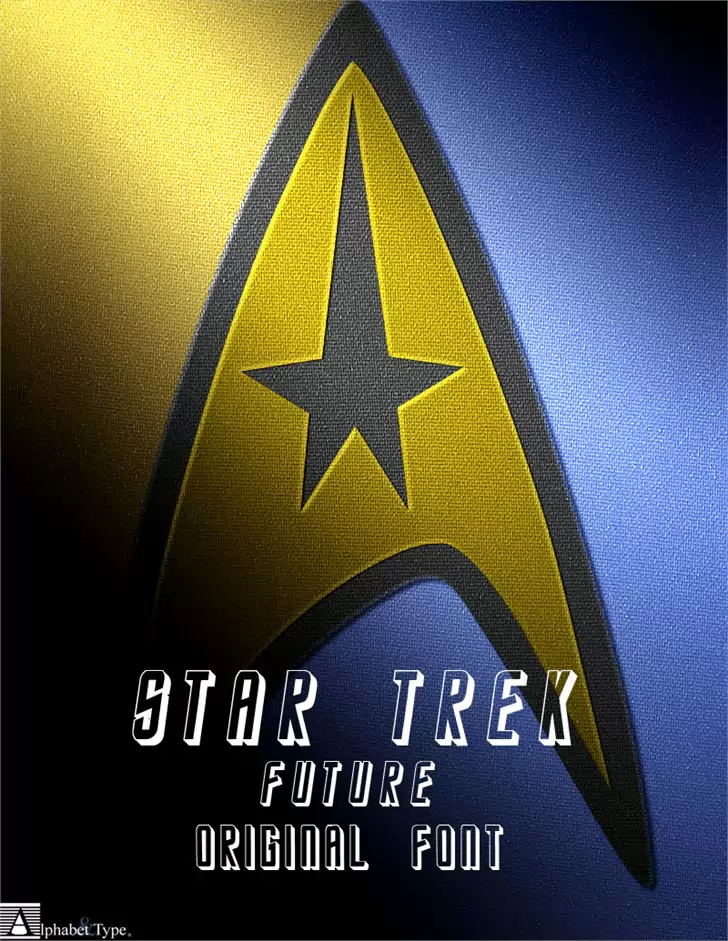
Font name: | Star Trek Future |
Author: | Alphabet & Type |
Note by Alphabet & Type | |
Space. Last Frontier.Directly from most famous tv-saga, the original font reproposed in the film capolavoro of J.J. Abrams. |